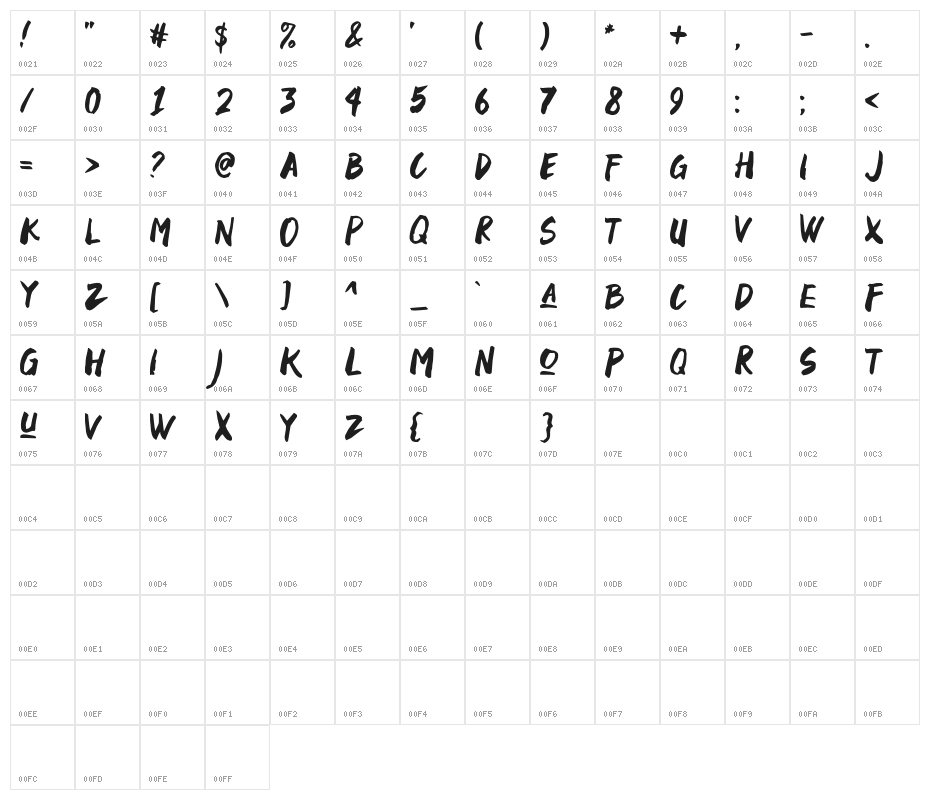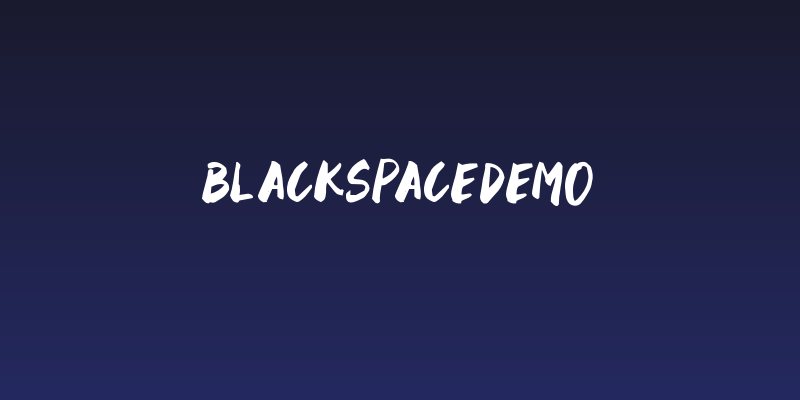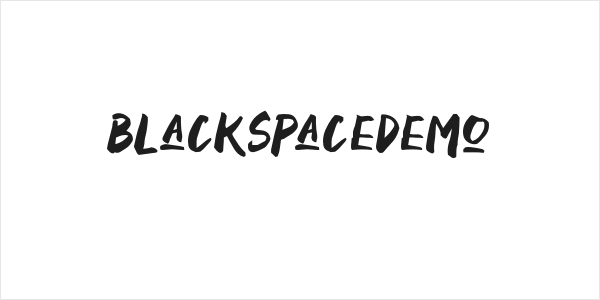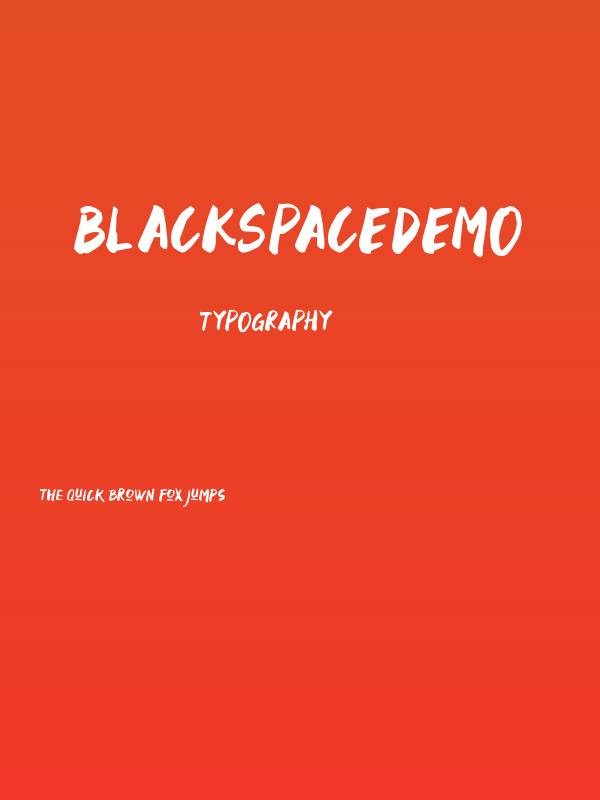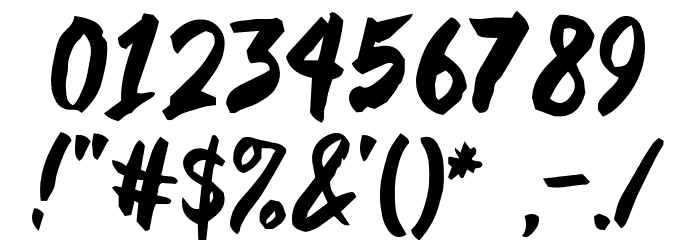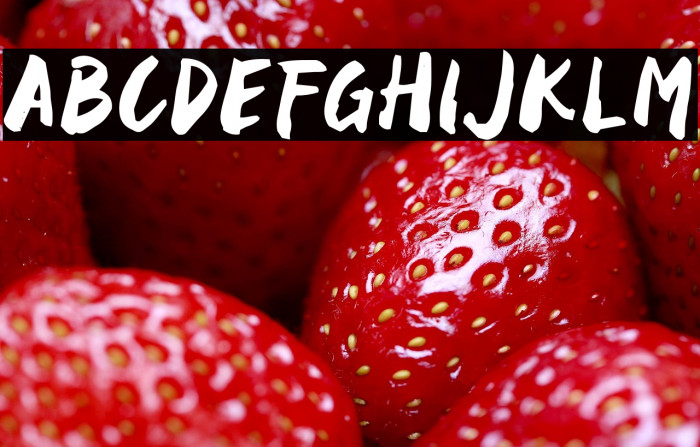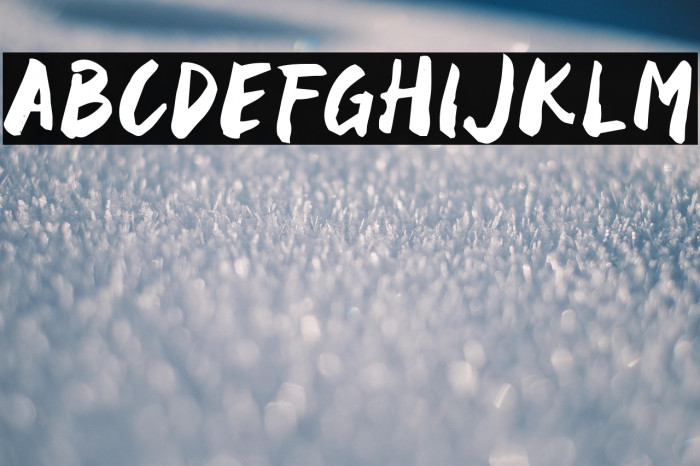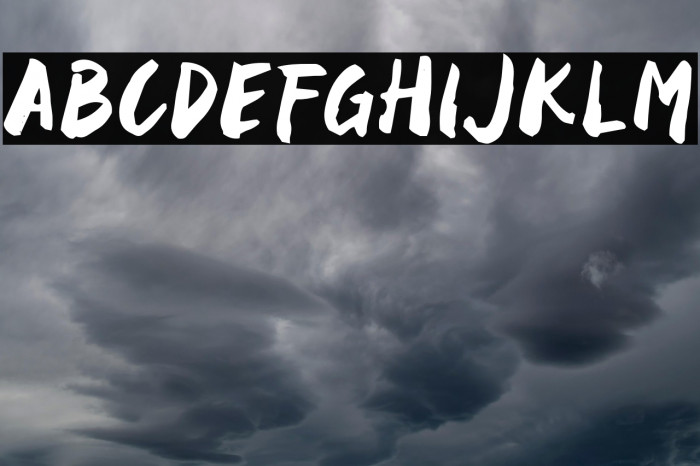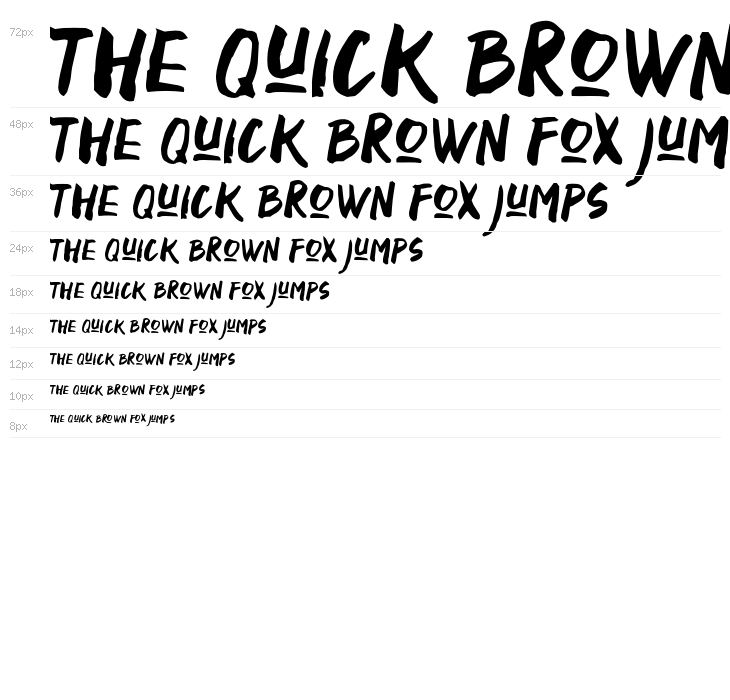
BlackSpaceDemo Font
BlackSpaceDemo Description
This font features bold, expressive strokes with a hand-painted aesthetic, giving it a dynamic and energetic feel. The characters are slightly irregular, adding to the handcrafted look, while maintaining legibility. The uppercase and lowercase letters share a consistent style, with a playful yet assertive presence. The numbers and special characters complement the alphabet with similar boldness and flair, making it suitable for attention-grabbing designs. The overall style is modern and artistic, perfect for projects that require a touch of creativity and individuality.